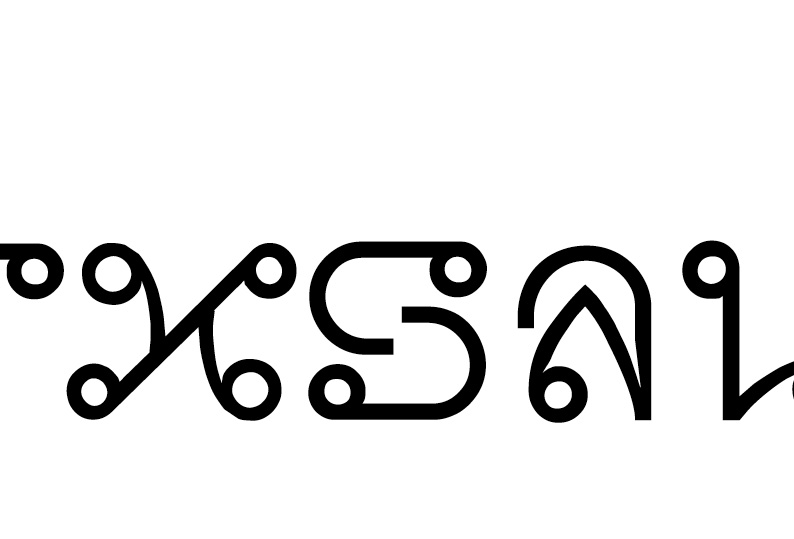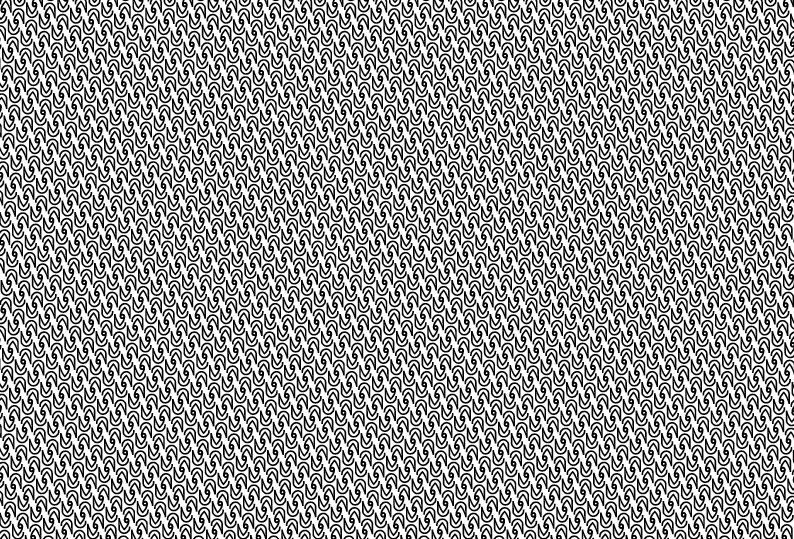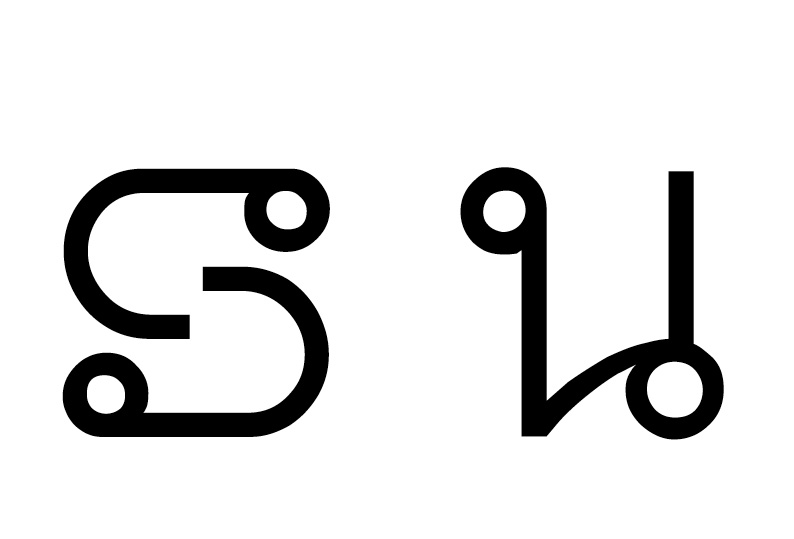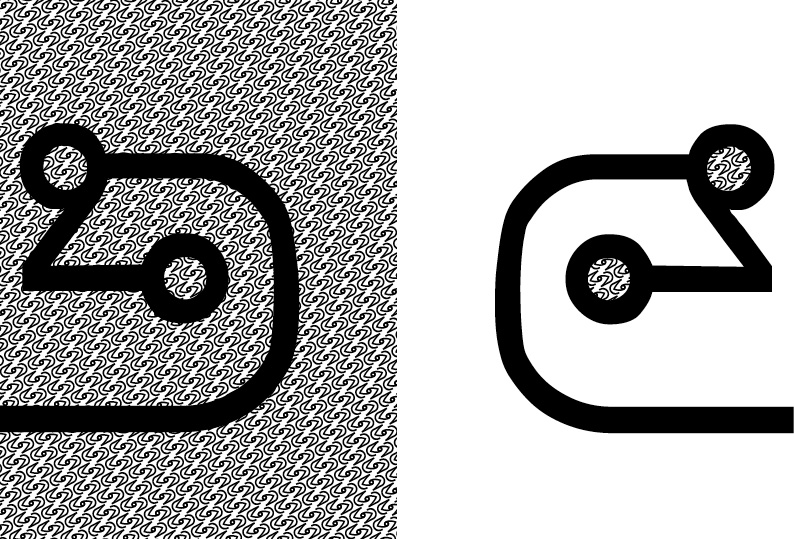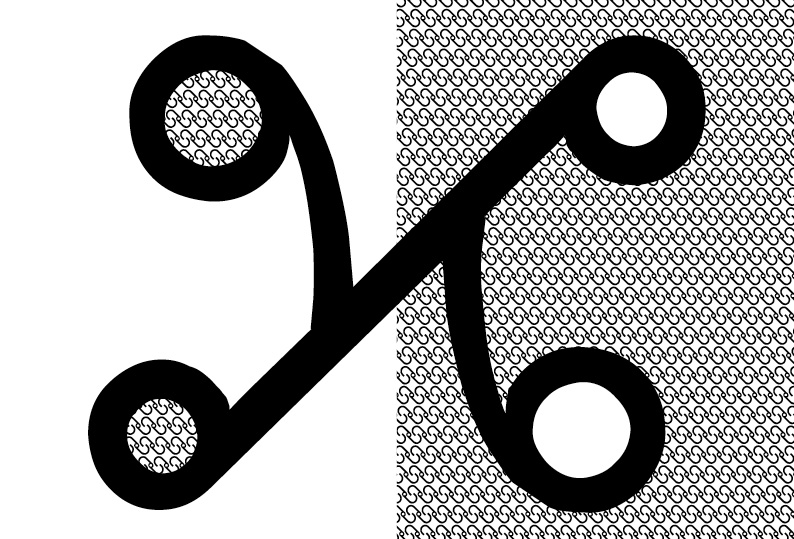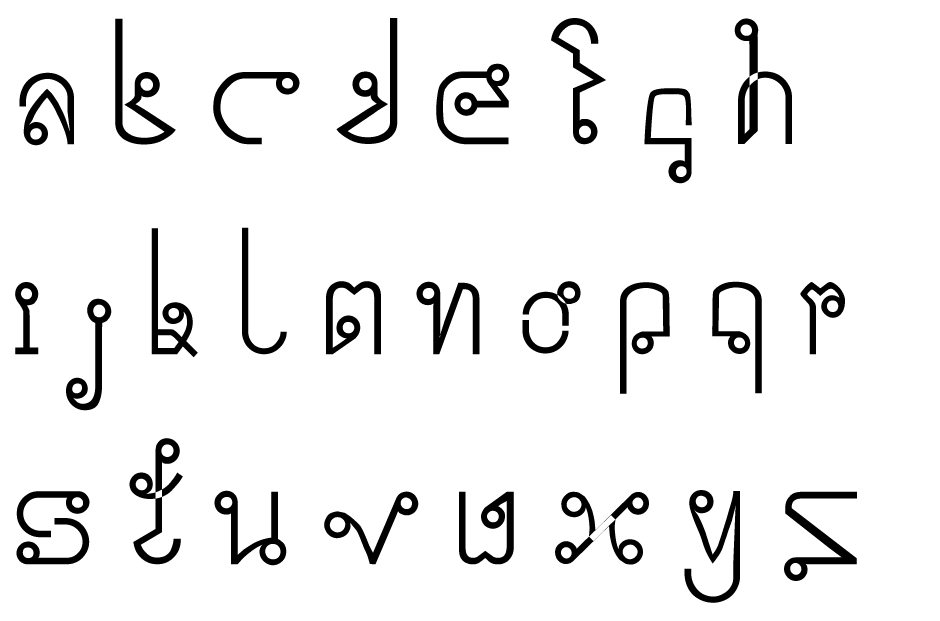
eurothai
by Carsten Goertz
WHAT Adapting the aesthetics of thai letters in latin alphabet.
WHAT "Adapting the aesthetics of thai letters in latin alphabet, I tried to fuse opposing approaches (in terms of punctuation, letter- and line-spacing) in order to have a more diverse tool of expression in typography. The thai alphabet was established by king Ramkhamhaeng and its first proof of existence was a bill of laws and rights from 1292. Ramkhamhaeng ruled by theses laws and so was able to unify this multiethnic country for the first time, heralding one of the most splendid and prosporous eras of sukothai - all by the achievement of a common code. peace by a unifying cultural effort. This font was a rather quick experiment and is not well-kerned yet or anything, so feel free to improve it and please let me know if you do so."